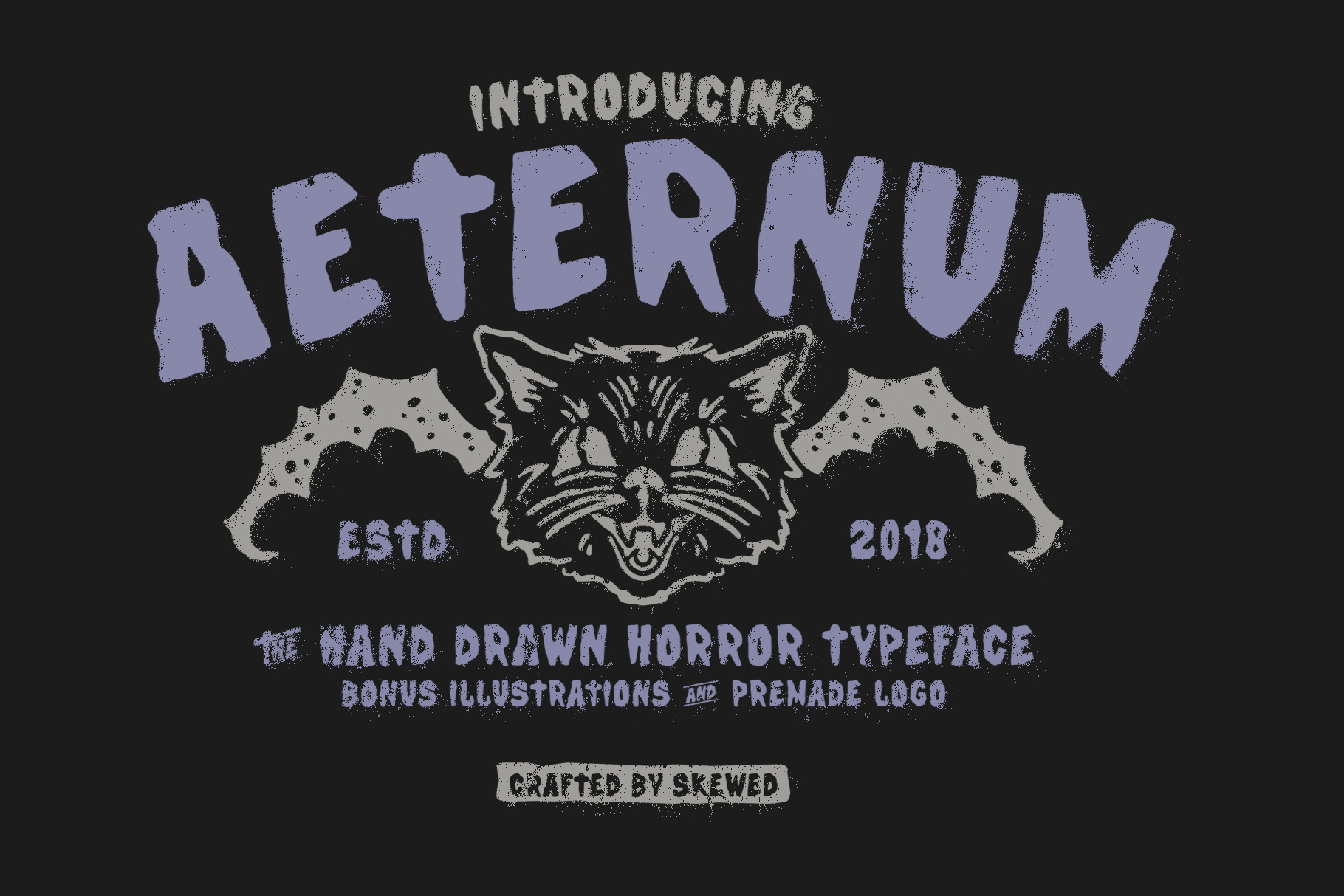
Aeternum Horror Typeface
"Aeternum" the hand drawn horror typeface bonus illustrations and premade logo
A hand-drawn horror font or typeface typically evokes a sense of unease and the uncanny, often incorporating elements that reflect its handmade, imperfect nature. These fons are commonly used in horror-themed media, such as posters, book covers, or movie titles, where the goal is to instill an immediate sense of dread or suspense.